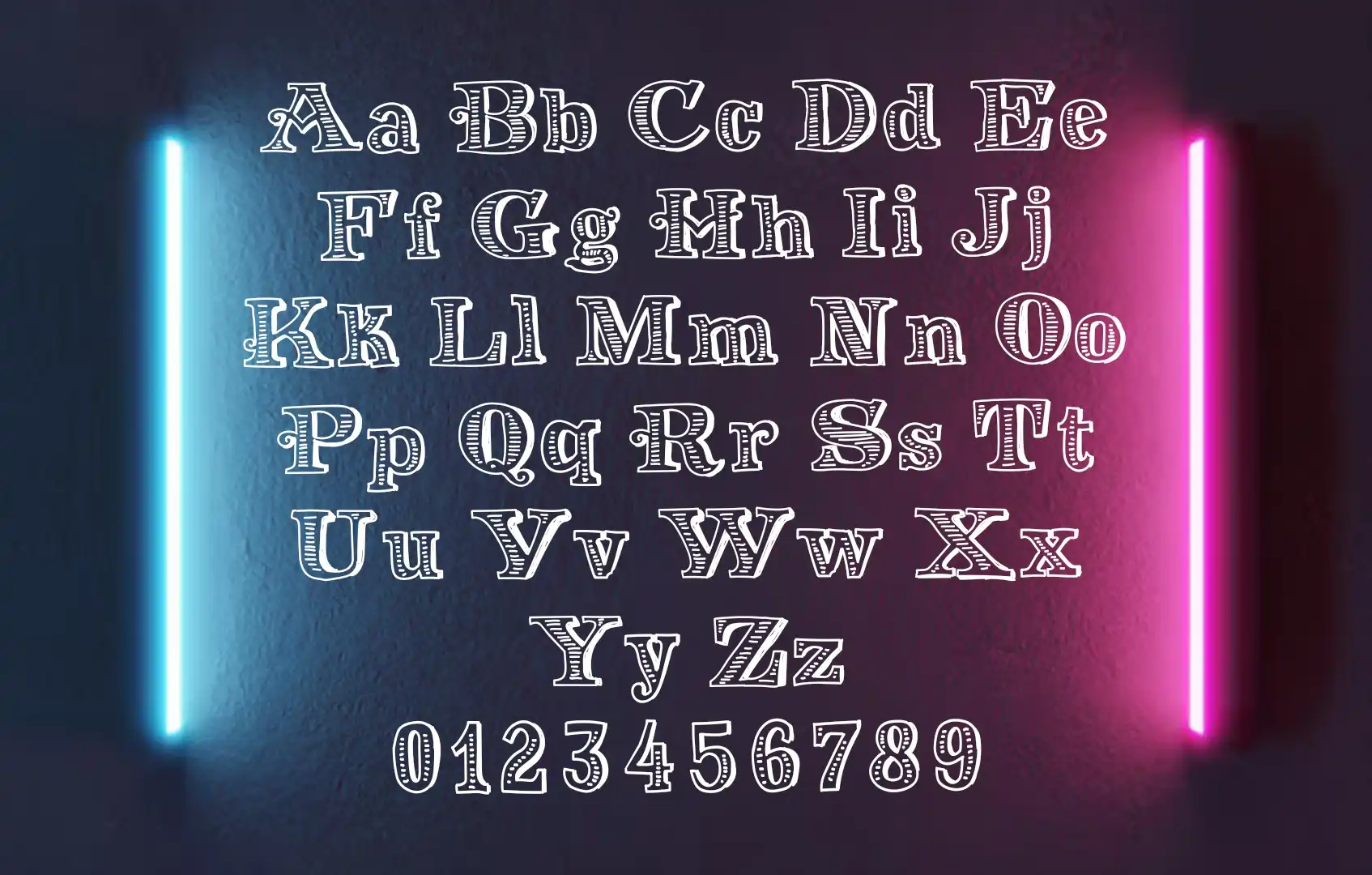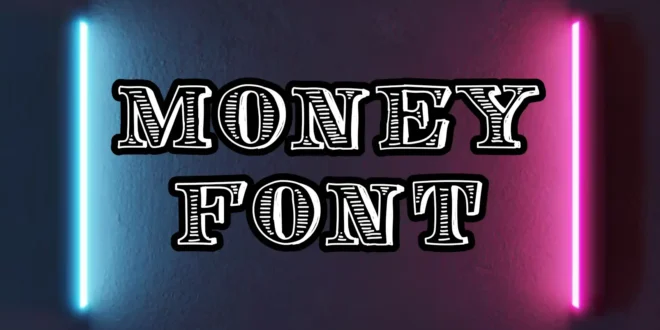
The Money Font refers to a style of typography that closely mirrors the intricate designs found on currency notes. It is often associated with luxury, prestige, and financial stability, making it popular for projects requiring elegance or wealth-related themes.
A unique feature of this texture is the detailed craftsmanship, typically designed with anti-counterfeit measures in mind. Also, it used actual banknotes, like U.S. dollars or Euros, which are custom-made to prevent forgery and are not publicly available.
Uses of Money Font
It is commonly used in a variety of financial-related projects where a sense of reliability, power, and affluence needs to be conveyed.
They are perfect for designing luxury brand logos, high-end product packaging, or even marketing materials for investment firms or financial advisors. Hence, their intricate details lend an air of authority and credibility to these projects.
Consequently, for web and graphic design, money fonts can be incorporated into social media posts, banners, or website headers where you want to evoke a sense of value and exclusivity.
| Name | Money Font |
| Designer | FG Studios |
| Type | Display |
What is a Money Font?
Also, it is a style of typography inspired by the intricate, secure designs found on currency notes, often used to convey sophistication, prestige, and financial trust.
What makes a font look like Money Font?
Therefore, the detailed strokes and intricate linework give money fonts a distinctive appearance, often mimicking banknotes’ secure and authoritative look.